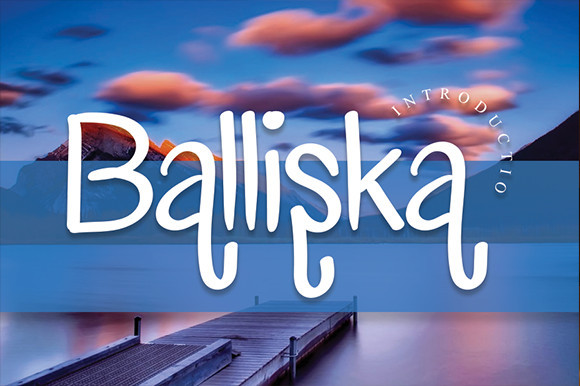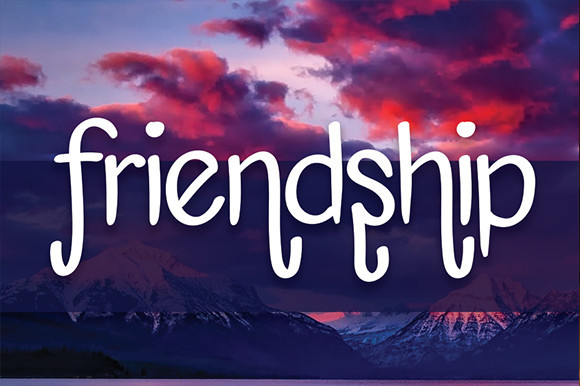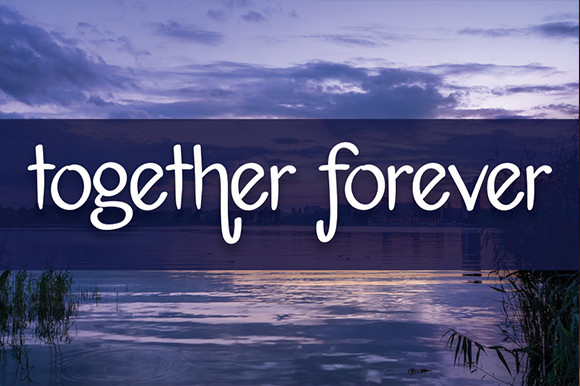
Balliska Font
Balliska feels equally charming and elegant. This display font is the perfect fit for all of your logos, branding, social media, and crafty DIY projects.